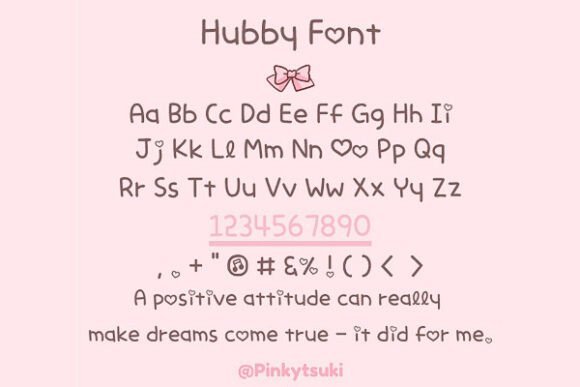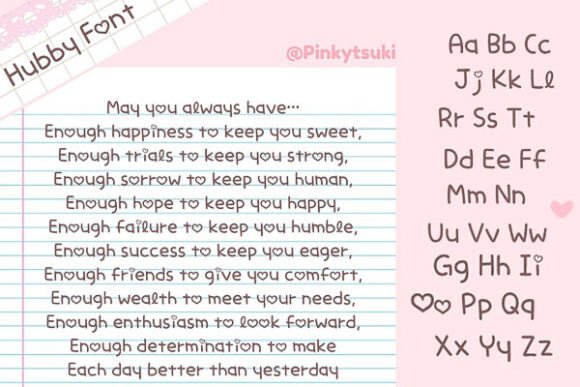
The Perfect Match for Your Creative Heart
Have you ever stared at a blank canvas or a blank document, searching for the perfect font to capture the essence of your creation? For many designers, the search for that special font can be a daunting task. But what if you stumbled upon a font that embodies the very essence of love and romance? Enter the Hubby Font, a charming handwritten font that will make your designs skip a beat.
With its sweet, flowing letters and cute heart accents, the Hubby Font is the perfect tool for designers looking to add a touch of whimsy and romance to their projects. Whether it’s a wedding invitation, a love letter, or a heartfelt message, this font is sure to make your design stand out. Its versatility and charm make it a valuable asset for any designer looking to add a little extra love to their work.
Hubby Font Key Features
- Unique Characteristics: Hubby Font features a playful, handwritten style with distinctive flourishes and irregularities, making it perfect for adding a personal touch to designs.
Hubby Font Review
As a designer, I was excited to dive into the Hubby Font, a sans-serif typeface designed for a modern and approachable aesthetic. ✨ One of the things that stands out about this font is its friendly and approachable vibe, making it perfect for use in body text, headings, and even signage. The font is also highly legible, even at smaller font sizes.
Some of the notable features of the Hubby Font include:
- ✨ Friendly and approachable aesthetic
- ✨ Highly legible, even at smaller font sizes
- ✨ Well-suited for use in body text, headings, and signage
- ✨ Includes a range of weights and styles to suit different design needs
- ⚠️ The font may not be suitable for use in formal or professional contexts, as it can come across as too casual
- ⚠️ Some users may find the font to be too rounded or soft, lacking the sharpness and edge of other sans-serif fonts
Overall, I think the Hubby Font is a solid choice for designers looking for a friendly and approachable typeface. While it may not be the best fit for every project, it’s a great option for those looking to create a warm and inviting aesthetic.
Hubby Font is ideal for designs that require a touch of nostalgia, playfulness, and whimsy. Common use cases include:
- Signage and posters
- Greeting cards and invitations